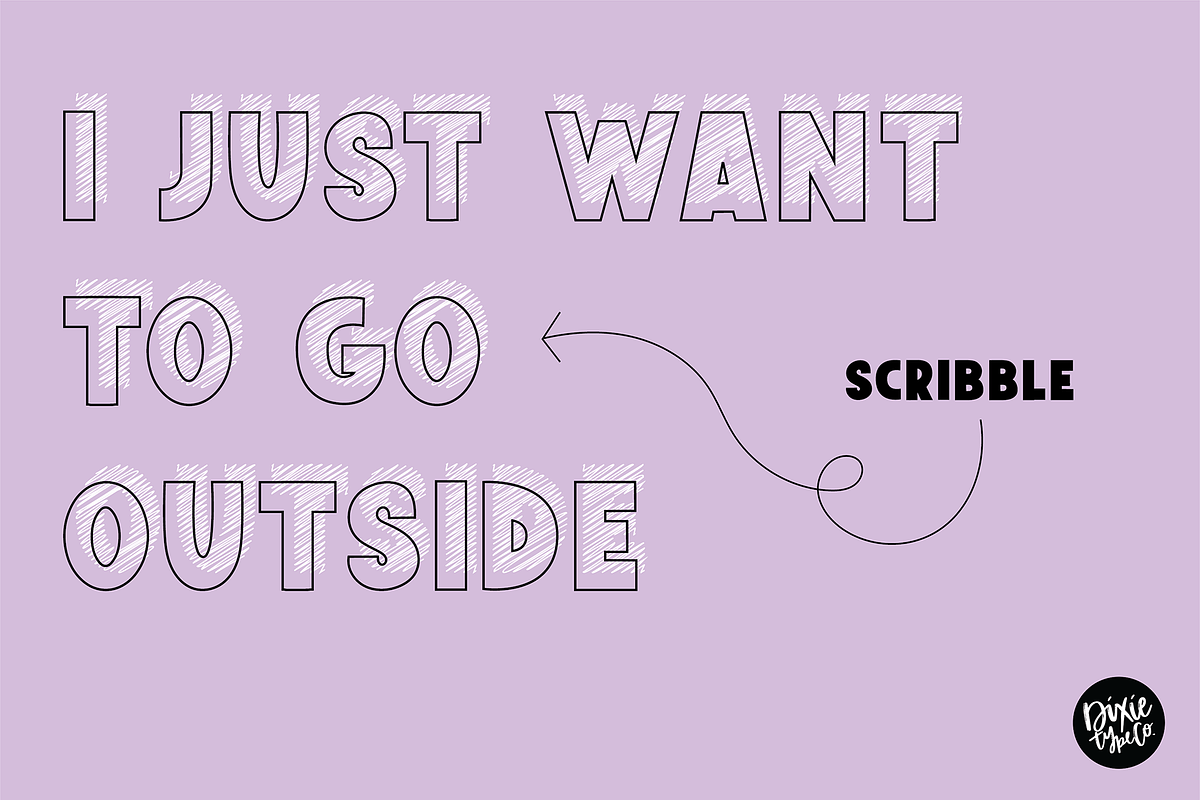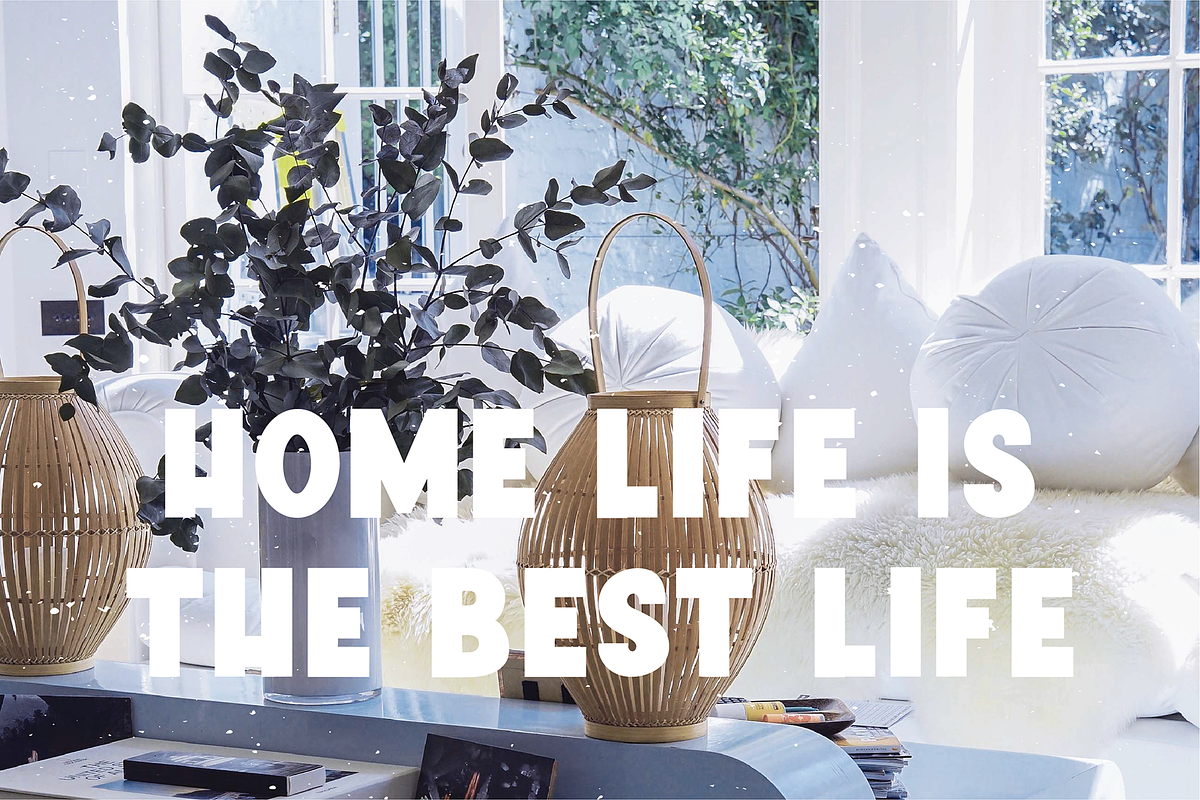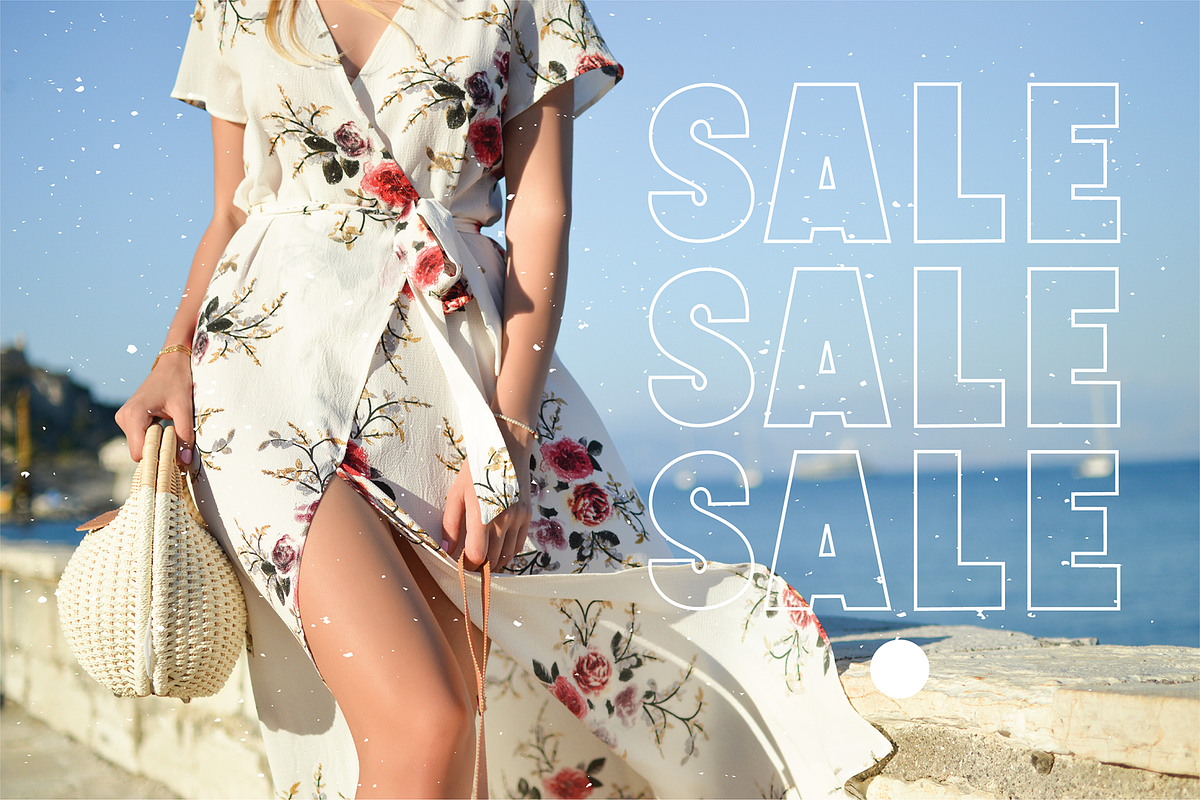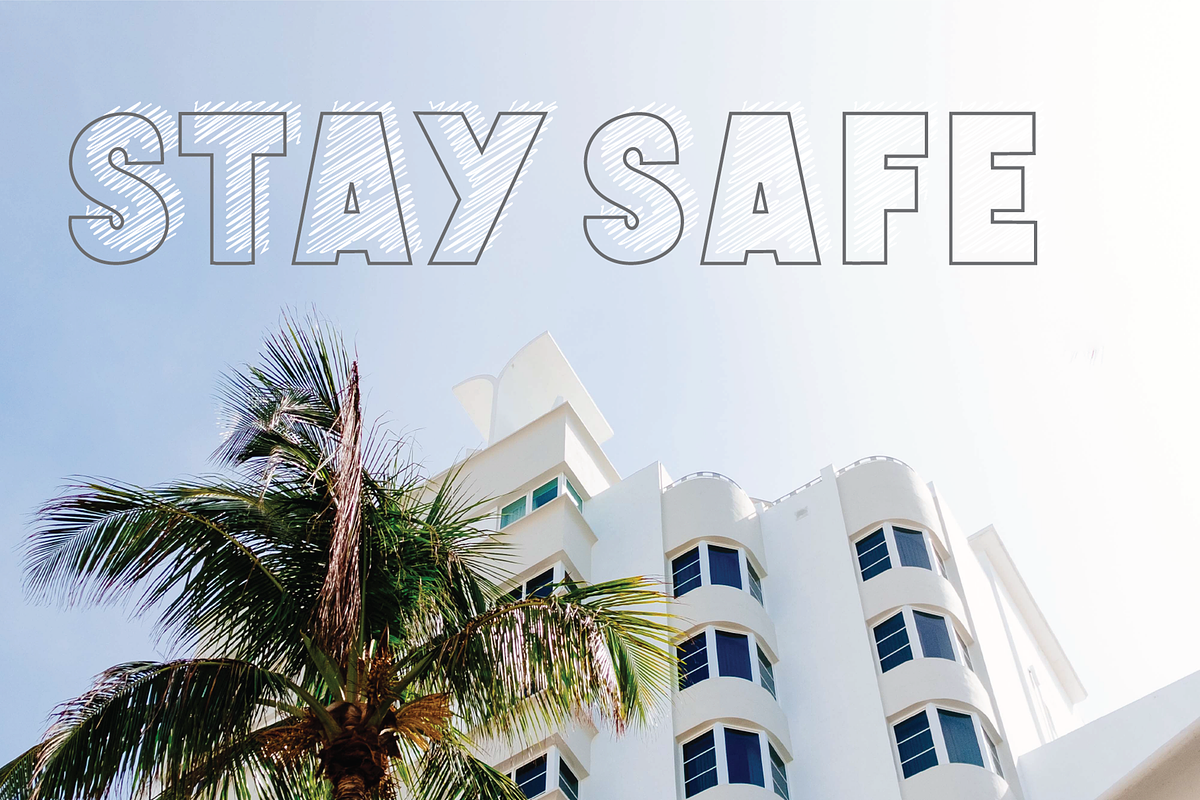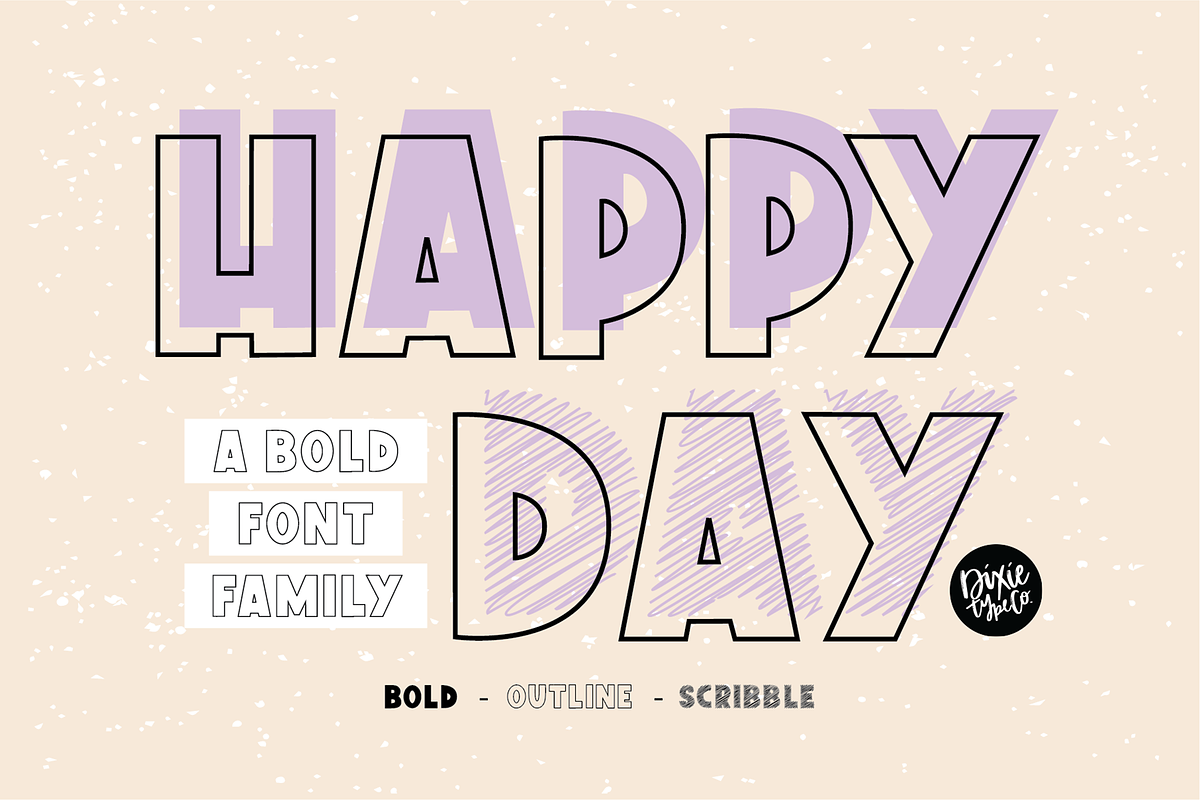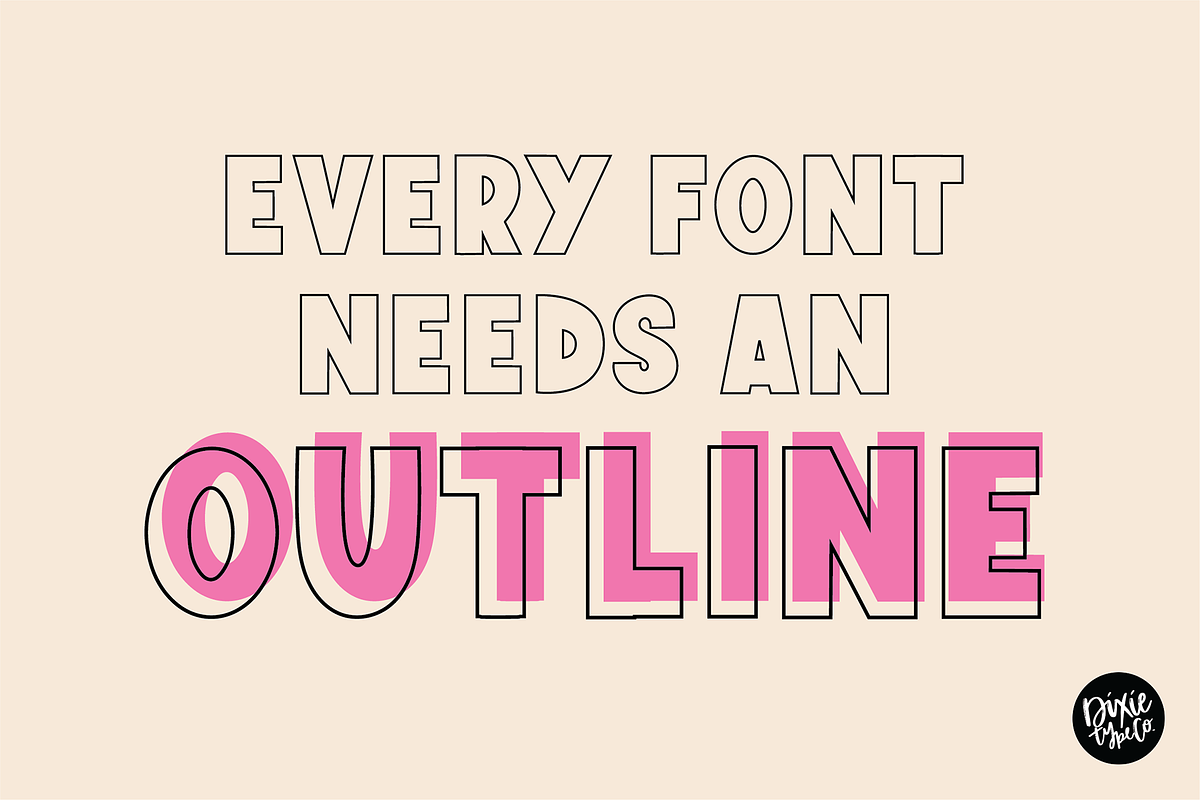
HAPPY DAY a Bold Font Family
"Happy Day" hand-lettered installable font. { A typographic font hand-lettered with love by Dixie Type Co. }
"Happy Day" is a bold, display font family. It includes 3 versions - Regular (Bold), Scribble, and Outline. Mix and match the fonts to create different looks. This works great as display or monogram text. Use it for party invitations, advertisements, IG posts, logos, etc.! This font has a lot of personality and is sure to spice up your projects!
The 3 fonts include: All caps characters (upper and lowercase characters are the same), and basic punctuation (no numbers).
- It includes 3 versions - Regular (Bold), Scribble, and Outline.
- The 3 fonts include: All caps characters (upper and lowercase characters are the same), and basic punctuation (no numbers).